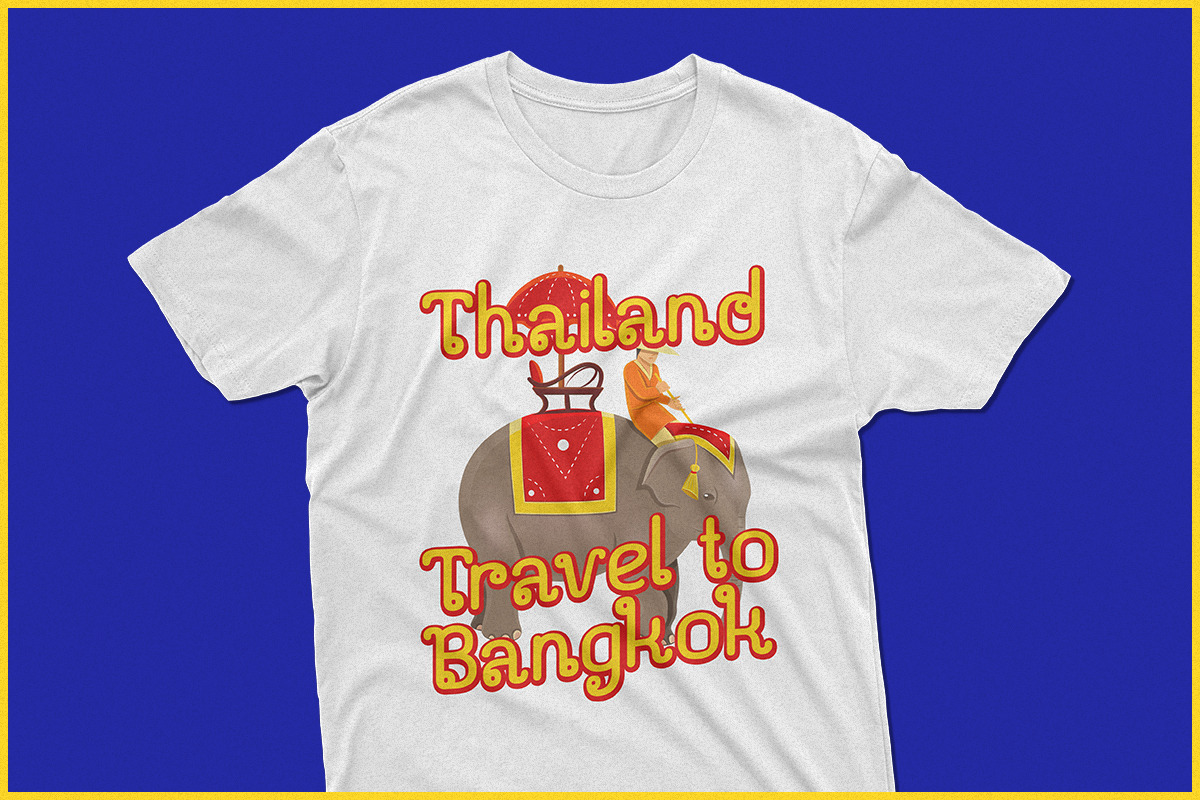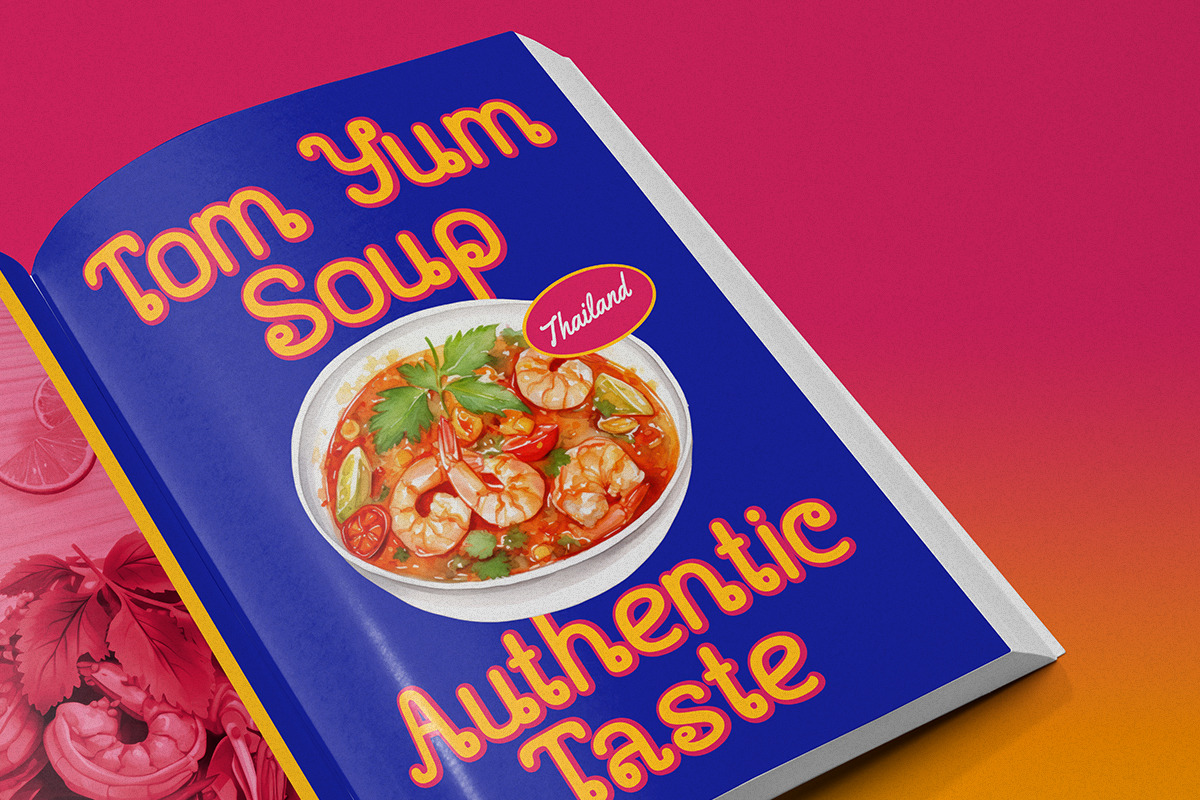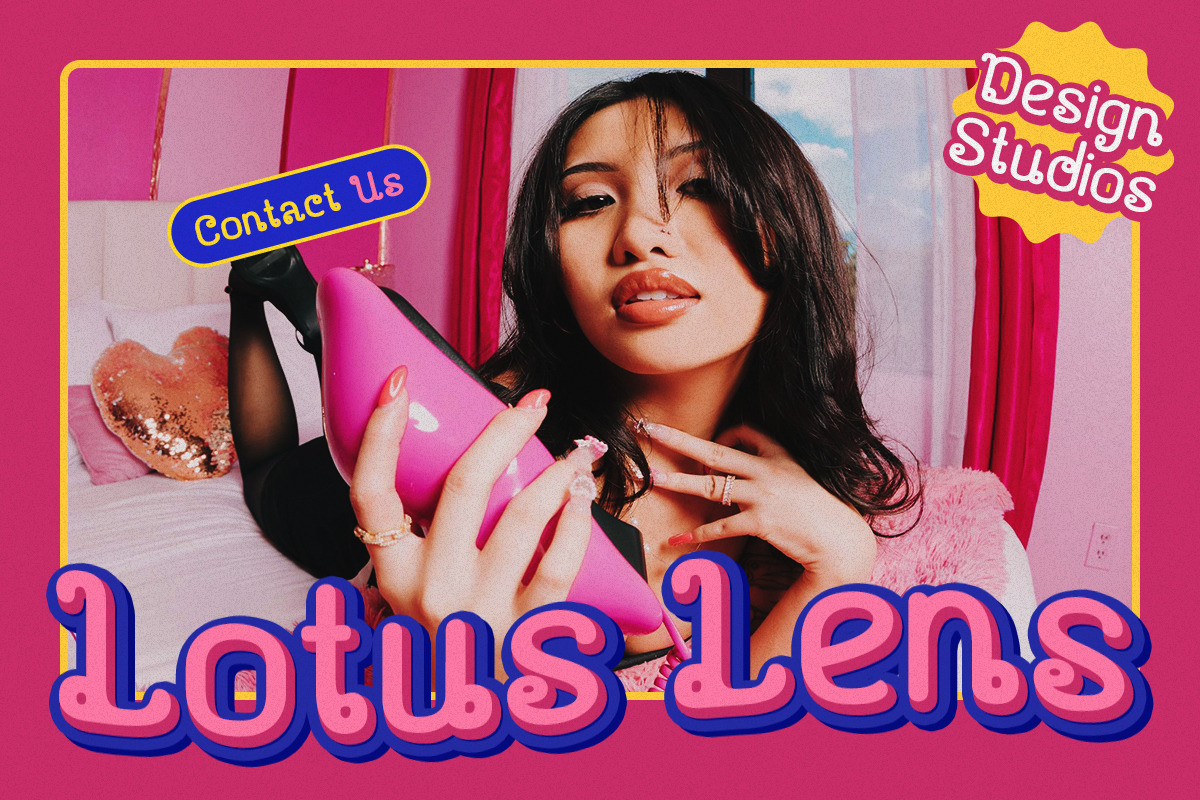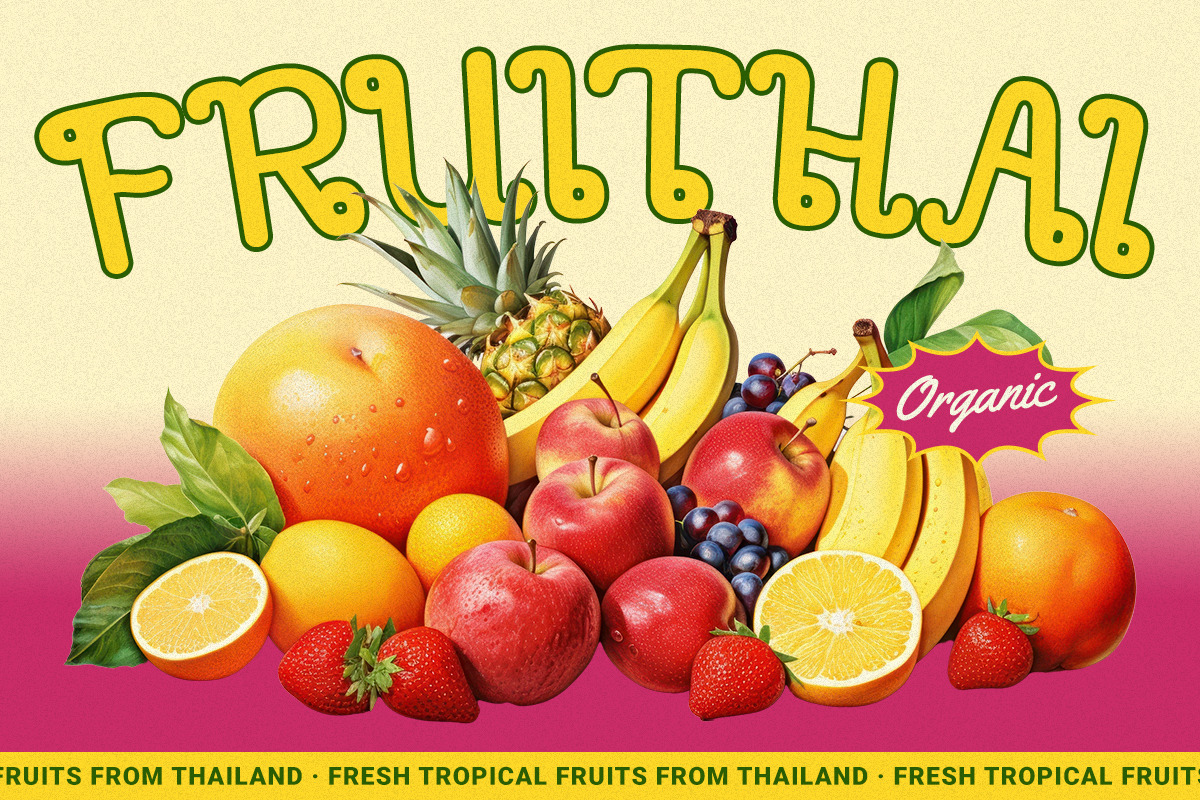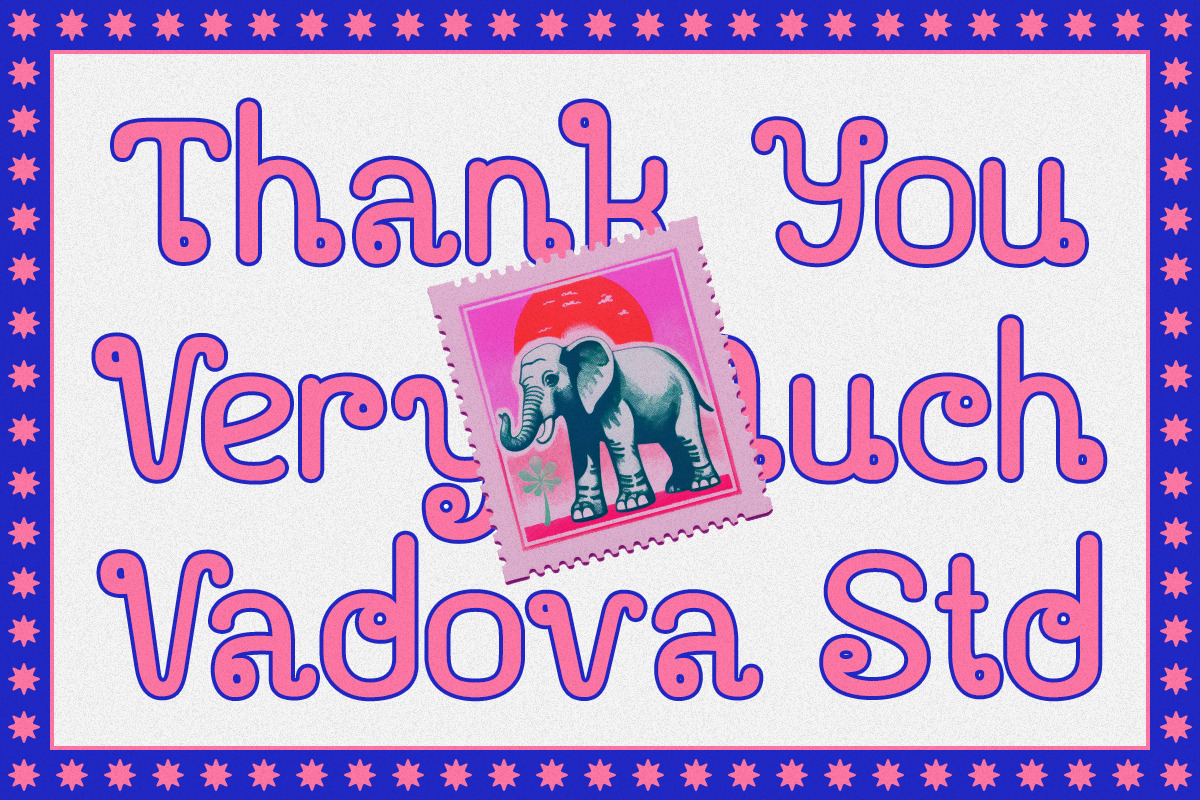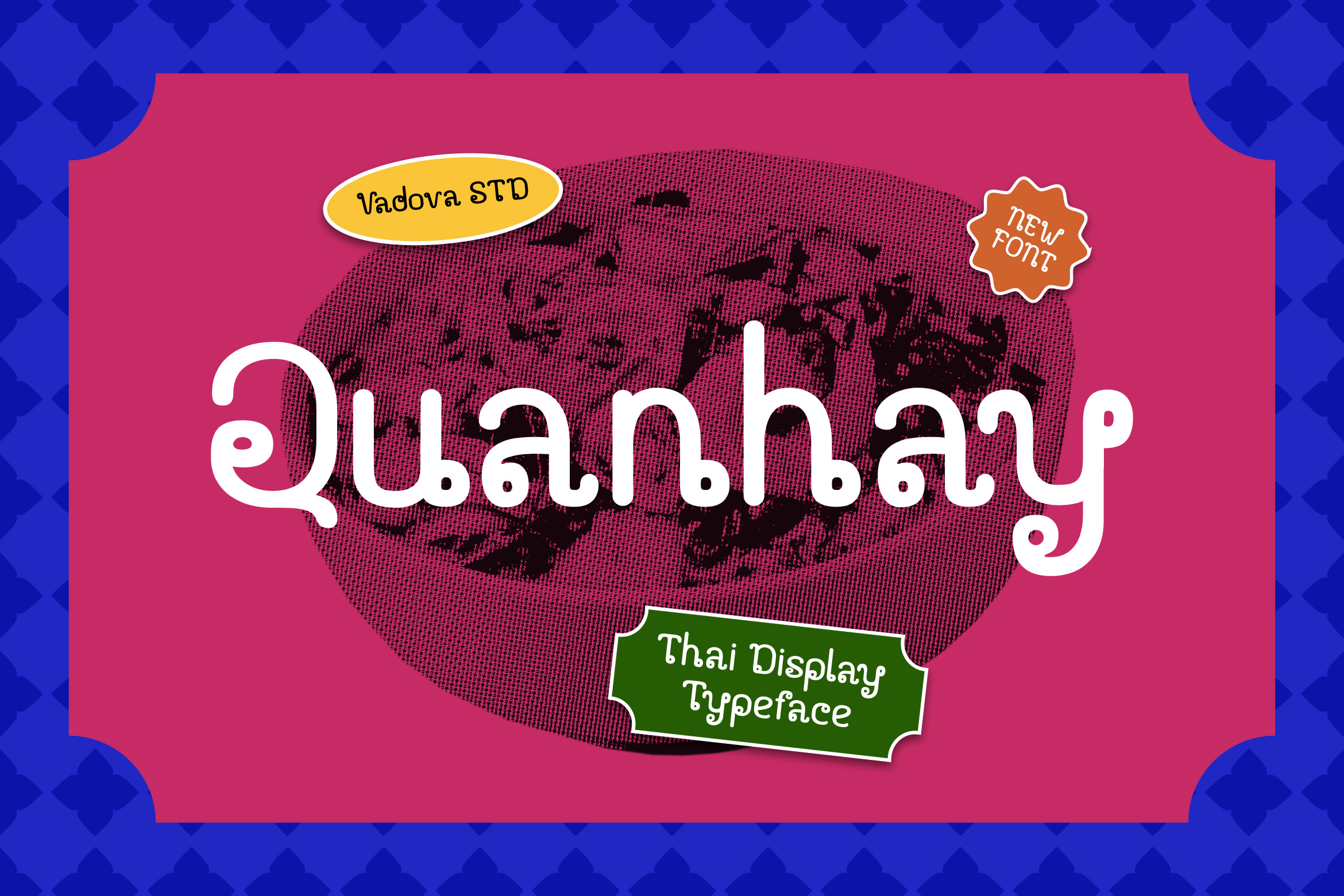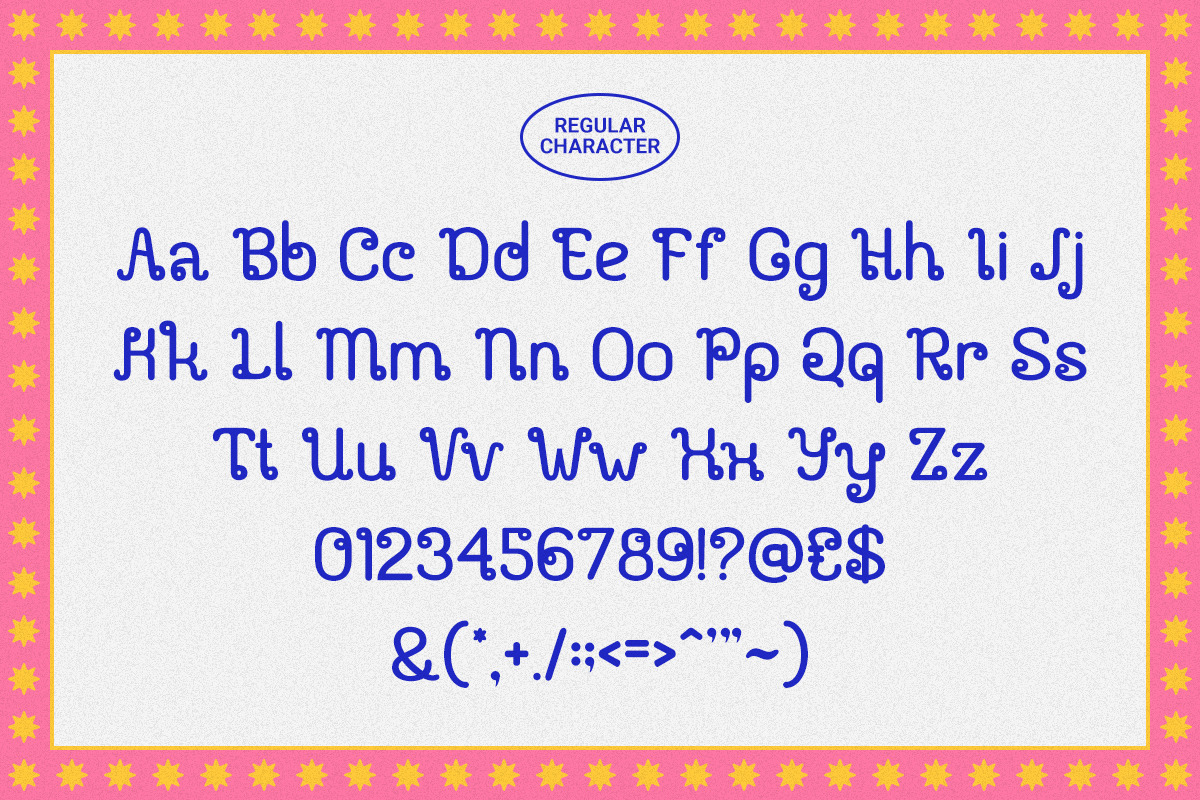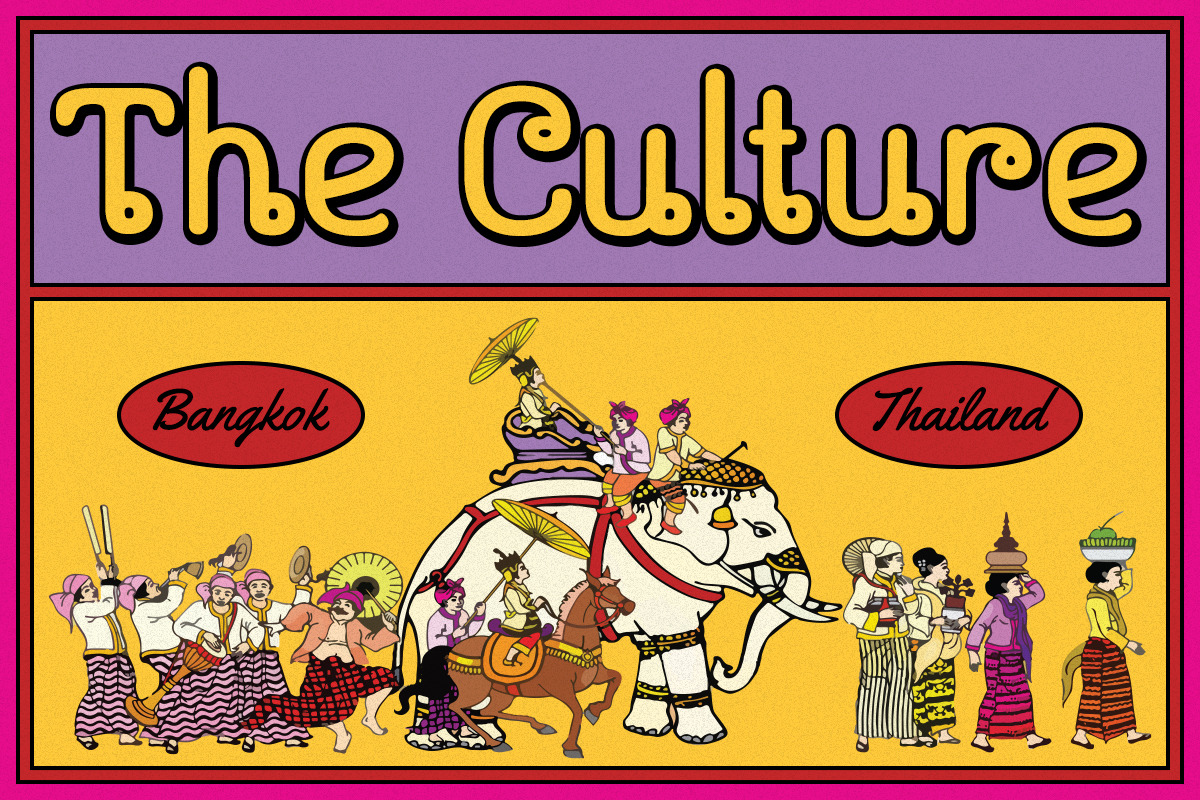
Quanhay Thai Display Typeface Font
Quanhay is a playful Thai-inspired display font featuring rounded strokes and expressive decorative terminals. The letterforms combine smooth curves with quirky spiral details, creating a cheerful and eye-catching personality. This typeface includes uppercase letters, lowercase letters, numerals, and punctuation, providing essential characters for creative typography. Its friendly structure and lively shapes make it suitable for bold visual compositions and colorful graphic layouts.
This font is relevant for creative projects that require playful and expressive typography with a lively personality. It works well for festival posters, social media graphics, creative branding, colorful advertising layouts, packaging design, and entertainment visuals where cheerful typography helps attract attention and communicate a fun atmosphere.
- Playful Thai-inspired letterforms with rounded decorative curves
- Unique spiral terminals adding a quirky and expressive character
- Smooth strokes creating a friendly and approachable appearance
- Slightly whimsical shapes for a lively display typography style
- Balanced spacing designed for colorful posters and creative layouts
- Playful branding and colorful logo design
- Festival posters and creative event promotions
- Social media graphics and digital content design
- Product packaging and vibrant label designs
- Advertising visuals and bold headline typography